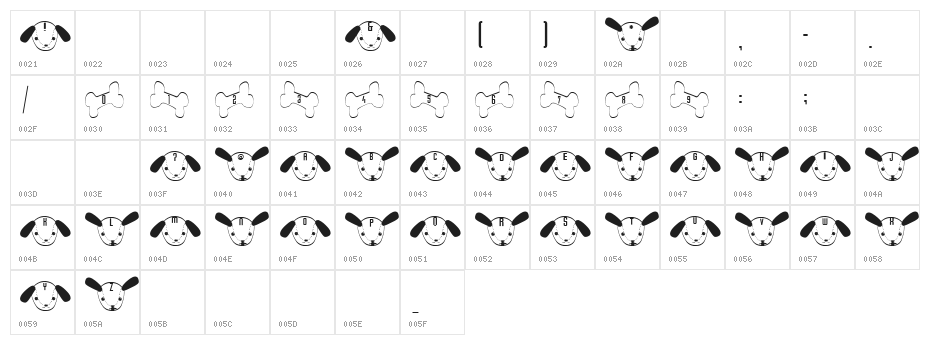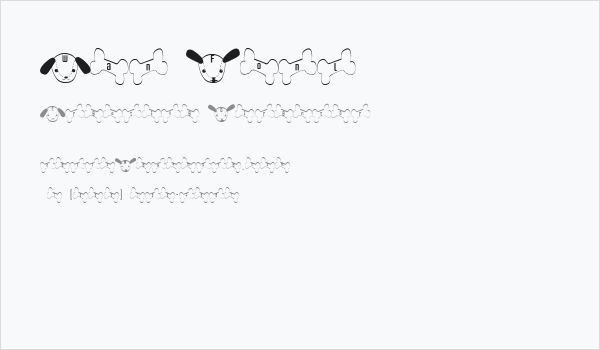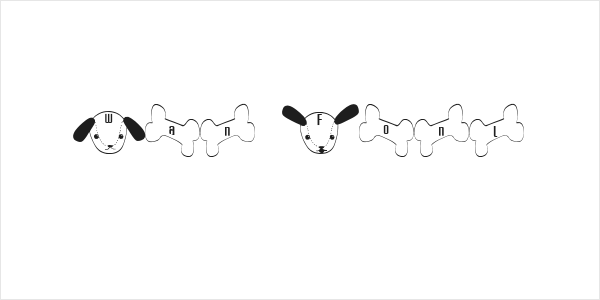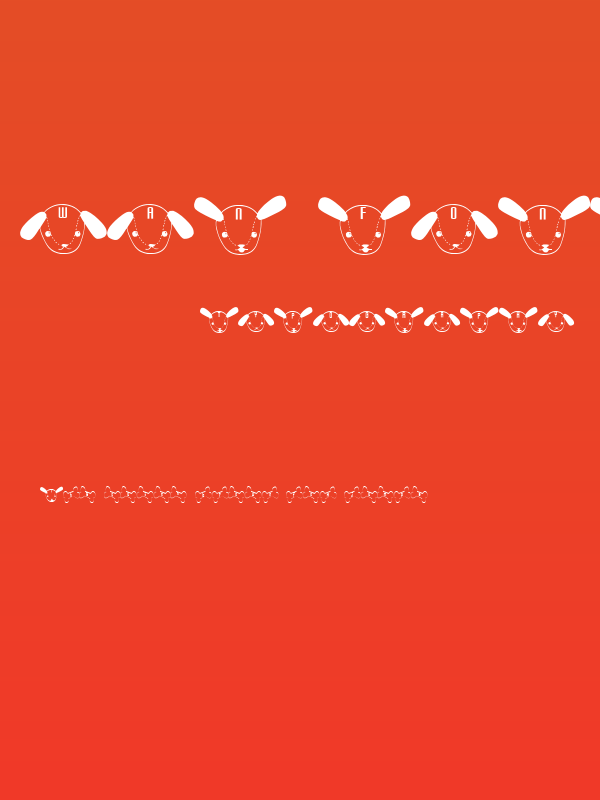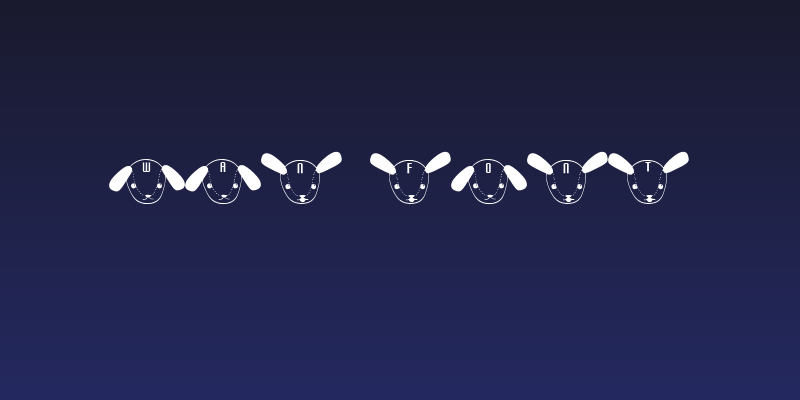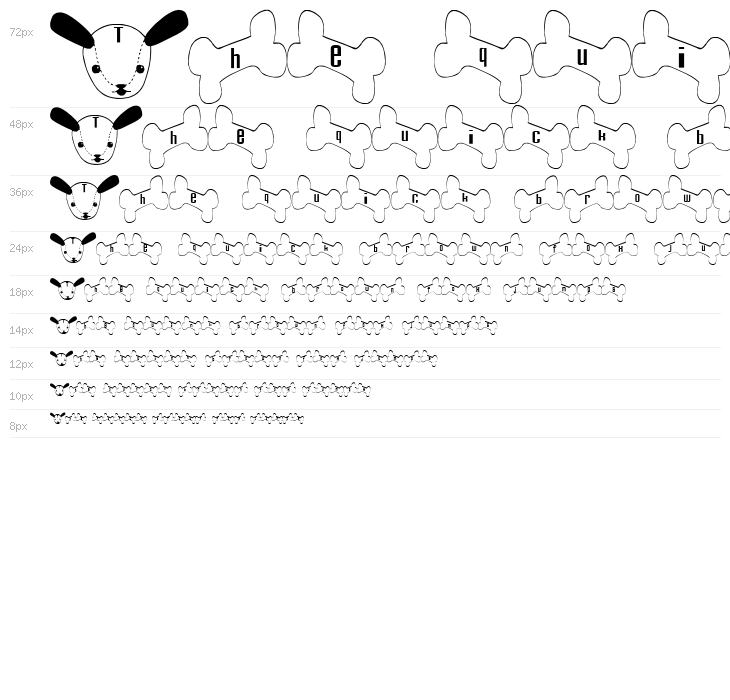
Wan Font Font
Wan Font Description
This playful and whimsical font features characters embedded within cartoonish dog faces and bone shapes, creating a unique and engaging visual style. Each letter and number is creatively integrated into these playful elements, making it ideal for projects that require a fun and lighthearted touch. The font is characterized by its decorative and illustrative nature, with a consistent theme that runs through all characters. The special characters are also cleverly designed to fit within the dog and bone motif, adding to the overall charm and cohesiveness of the font.
| Overall Style | Playful and Whimsical |
| Use Case | Logos, Posters, Invitations |
| Proposed Projects | Ideal for children's books, pet-related branding, playful invitations, and creative posters. |